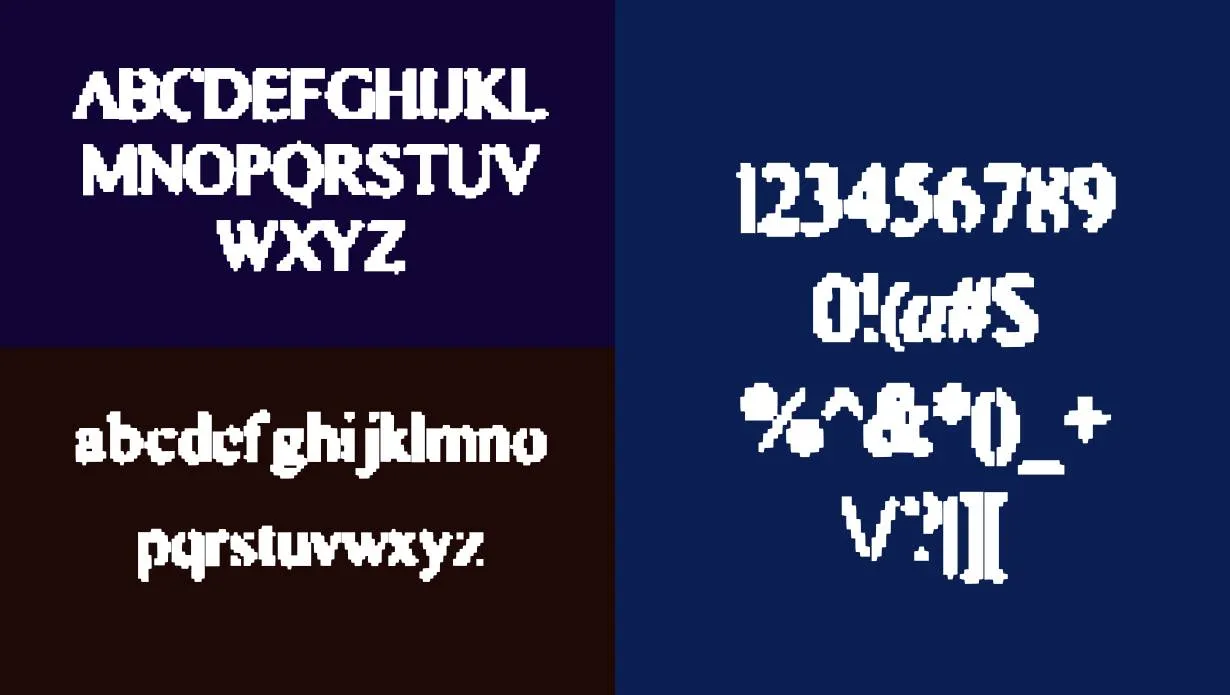
The Astro Creep font presents a futuristic and space-inspired look, reminiscent of text from beyond the Earth. In Adobe Photoshop, it crafts space-themed designs, evoking a cosmic and otherworldly feel.
Its integration into CSS adds a cosmic and futuristic touch to web elements. In Canva, it’s perfect for generating sci-fi social media posts or futuristic event promotions, capturing an otherworldly essence in the visuals.